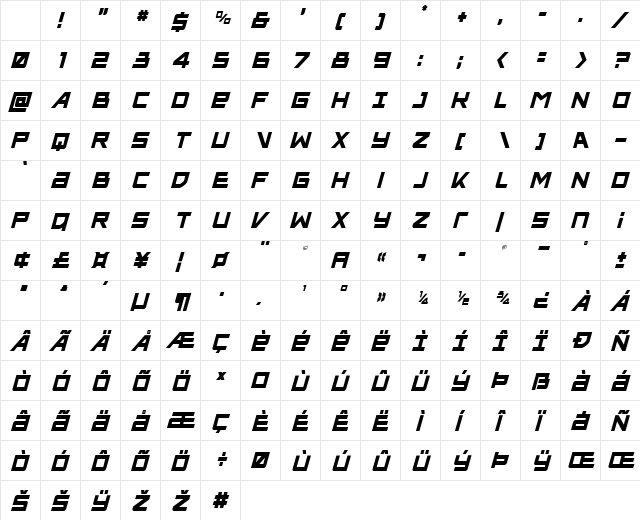
Complete Ace of Swords Condensed Italic Regular glyph index. Displaying only characters natively supported by Ace of Swords Condensed Italic Regular font.
Ace of Swords Condensed Italic is a composed and adaptable typeface that performs quietly and consistently across a wide range of design contexts. The slanted form adds forward momentum and visual energy. Its narrow stance lets it pack a punch even in space-constrained designs.